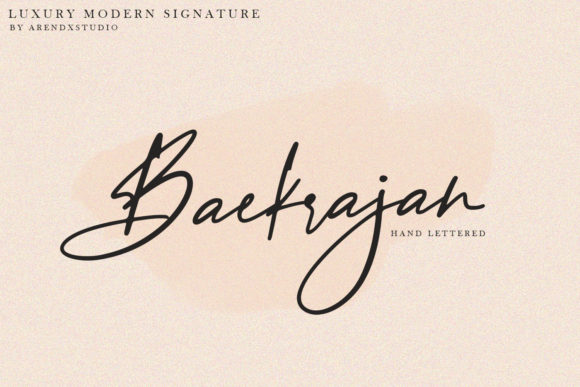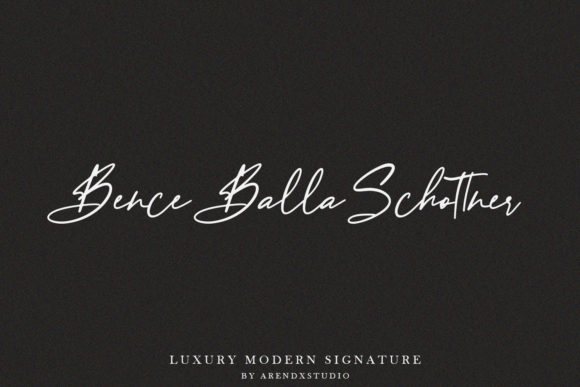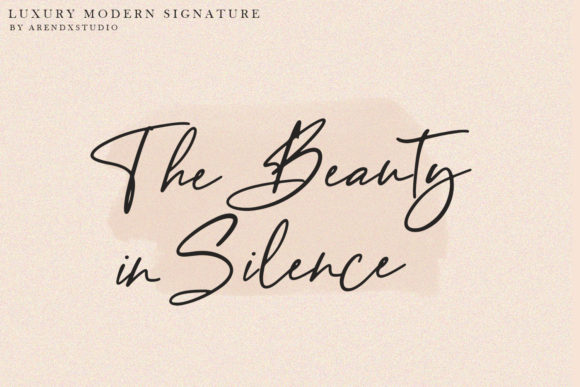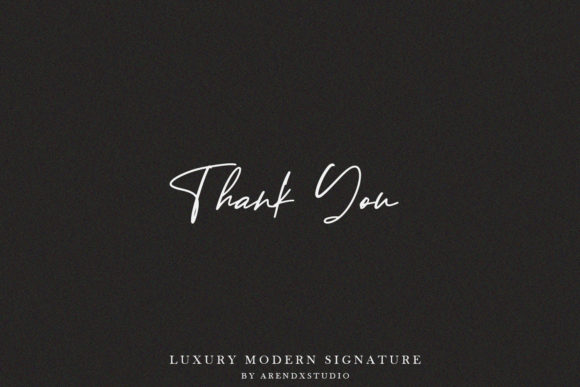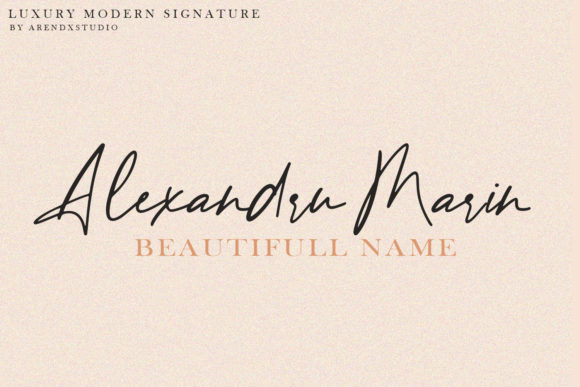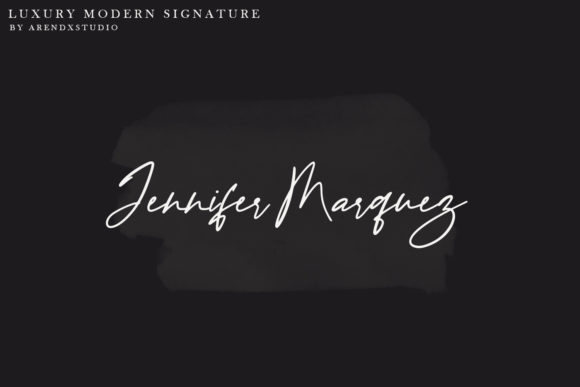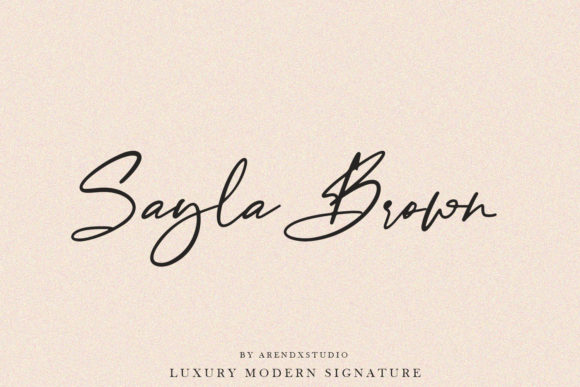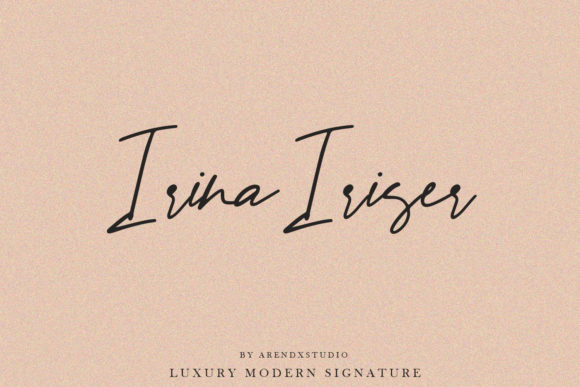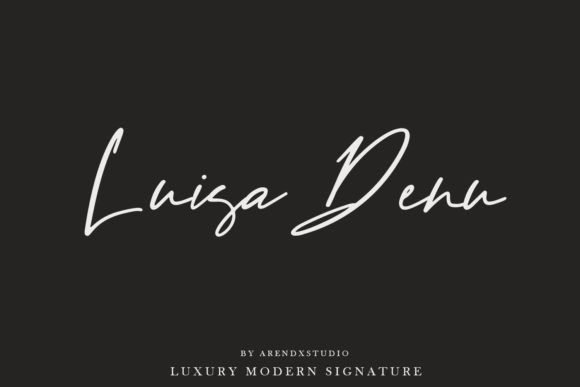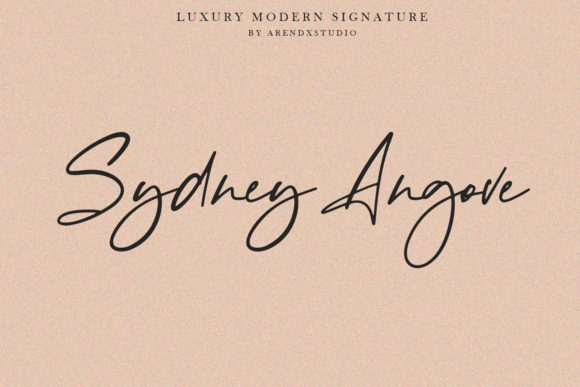
Baekrajan Font
About Baekrajan Font
Baekrajan is a luxurious yet casual script featuring distinctive style. Use it for any crafting project that needs a personalized appearance!